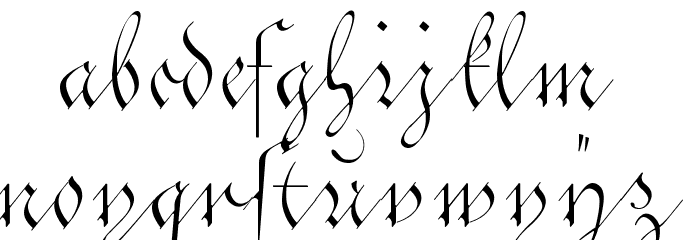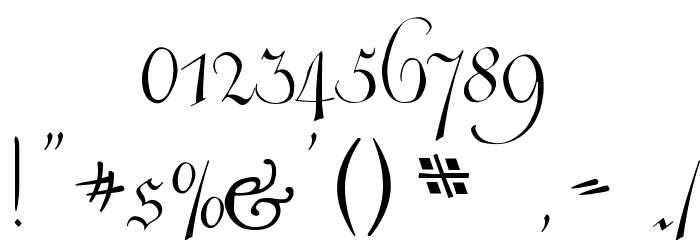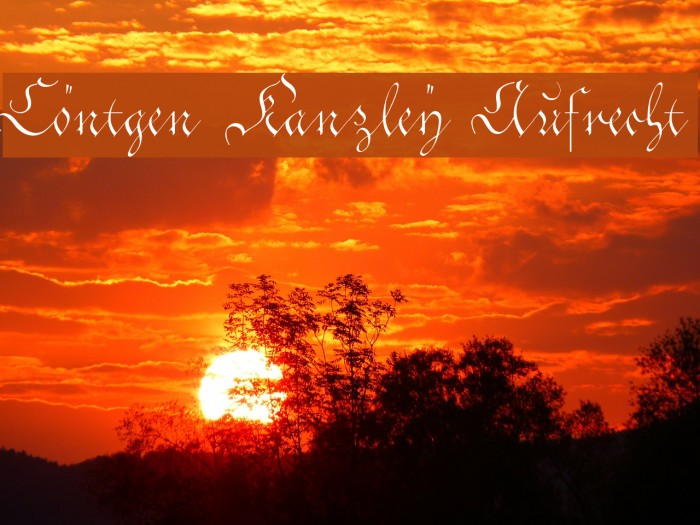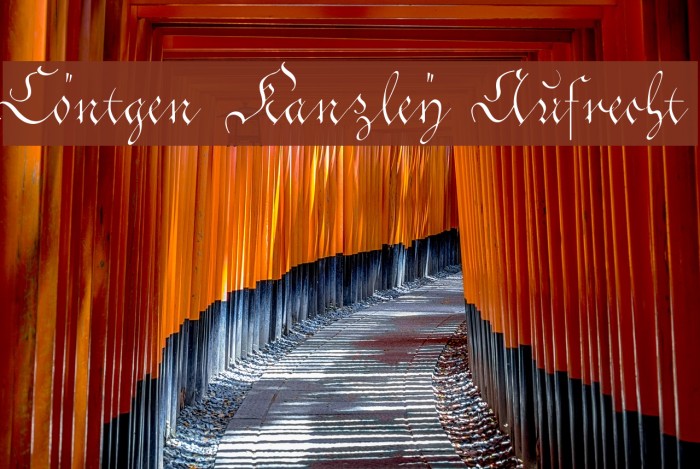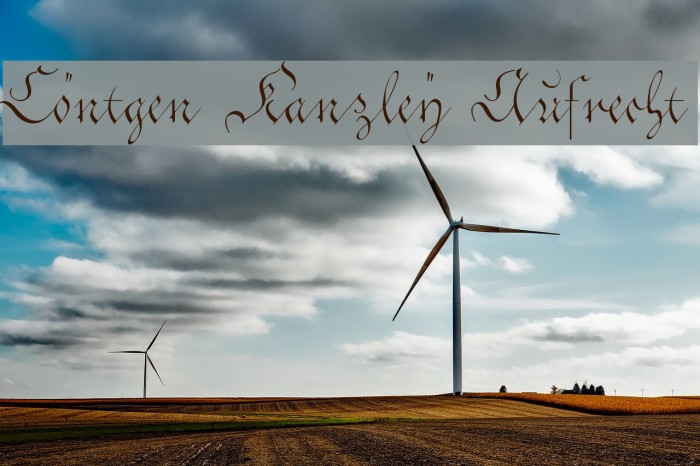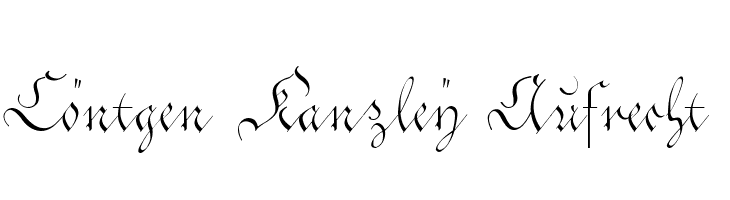
Cöntgen Kanzley Aufrecht Font
This font exudes elegance and sophistication with its intricate and flowing script style. The characters are highly decorative, featuring elaborate swirls and flourishes that give it a calligraphic appearance. The uppercase letters are particularly ornate, with each letter having unique embellishments that enhance its visual appeal. The lowercase letters maintain a consistent style, with smooth curves and sharp angles that create a dynamic and engaging look. The numerals and special characters are equally detailed, ensuring a cohesive design throughout. This font is perfect for projects that require a touch of luxury and refinement.
An elegant and ornate script font with intricate flourishes.